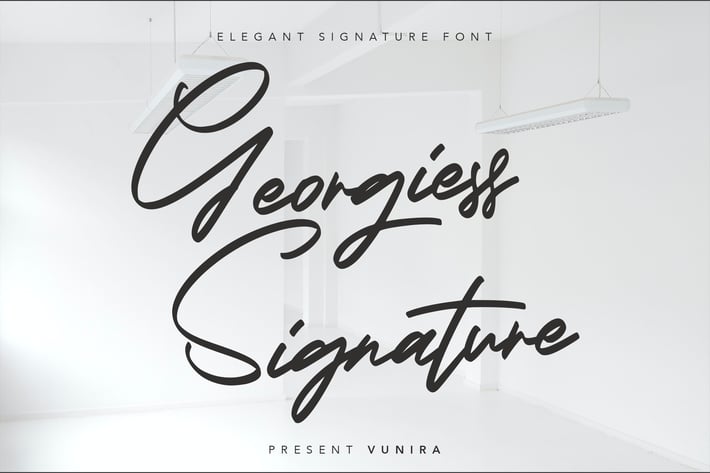
Georgiess Signature | Elegant Signature Font
Georgiess Signature | Elegant Signature Font with a calligraphy style, So beautiful on invitation like greeting cards, branding materials, business cards, quotes, posters, and more!